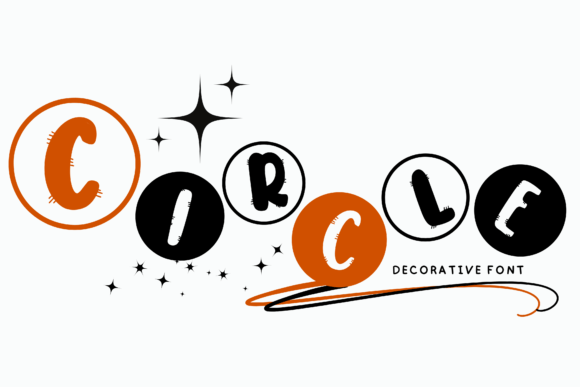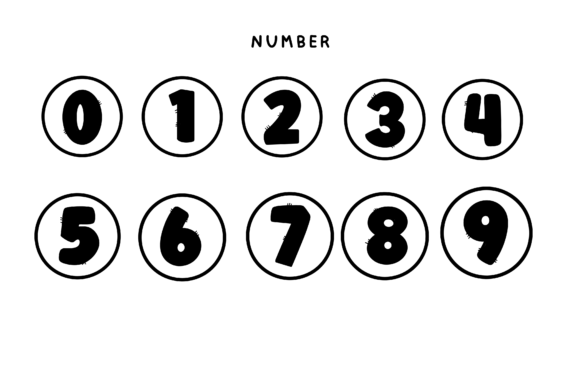
Circle Font
Experience the charm of Circle, an enchanting decorative font that radiates authenticity. Ideal for jotting down your thoughts, penning diary entries, or crafting heartwarming greeting cards, Circle adapts effortlessly to your every creative need. This versatile creation extends its reach beyond traditional uses, assimilating perfectly into banner designs, embellishing mugs, adorning apparel, complementing stationery, and enhancing social media posts among a plethora of other design applications. Immerse yourself in the captivating allure of Circle, a font that blends elegance and practicality to meet all your design needs.